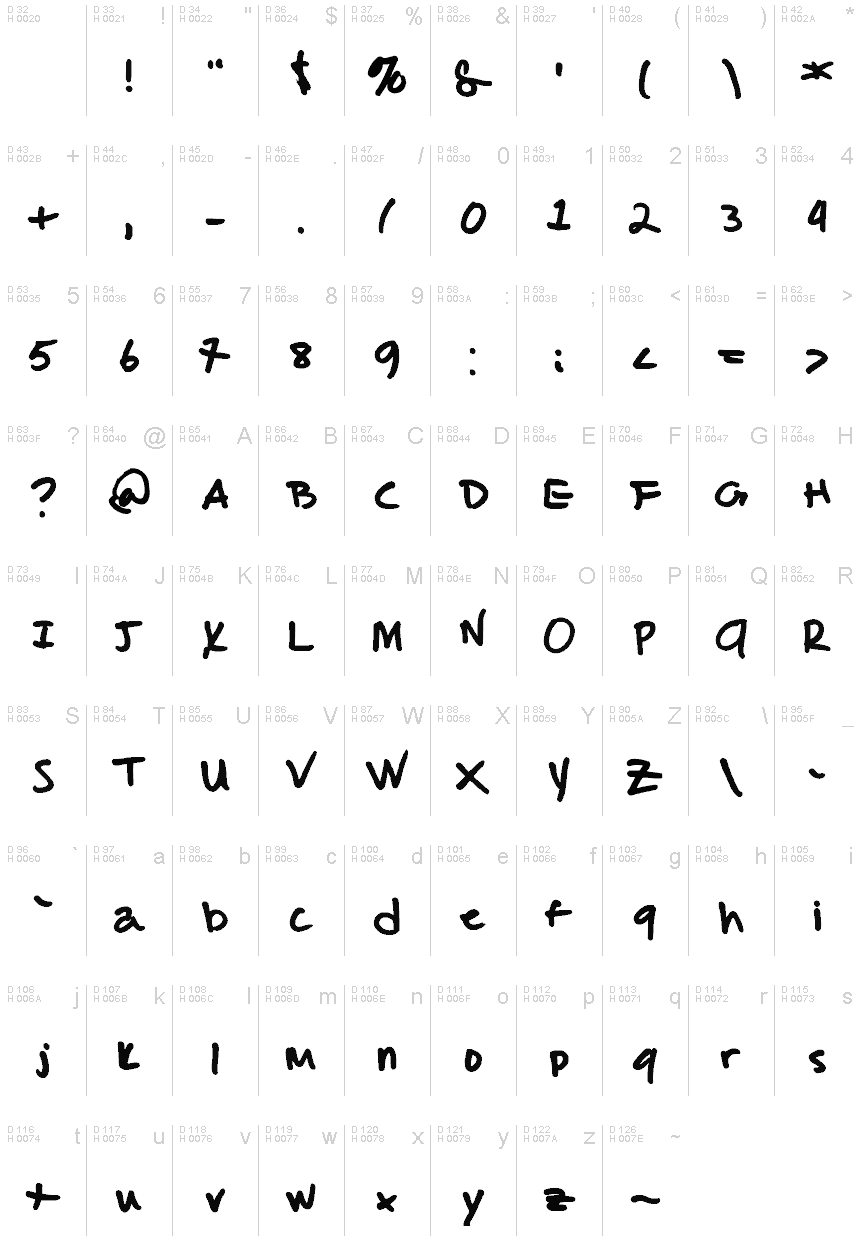
malcolm's handwriting Medium
Malcolm's Handwriting is a captivating font designed by Jasmine, exuding a charming and authentic handwritten aesthetic. The fluid, organic strokes and natural variations create a delightful, personal touch, conveying a sense of warmth and individuality.
The font's unique character is defined by its imperfect, lively lines that seamlessly blend together, mimicking the organic flow of handwritten text. This distinctive style adds a touch of authenticity and personality to any design, making it an excellent choice for projects seeking a handcrafted, personalized look.
Versatile in its applications, Malcolm's Handwriting can elevate a wide range of design elements, from logos and branding to editorial content, packaging, and more. Its adaptability and engaging visual appeal make it a valuable asset for designers seeking to infuse their creations with a genuine, handwritten charm.
The font's unique character is defined by its imperfect, lively lines that seamlessly blend together, mimicking the organic flow of handwritten text. This distinctive style adds a touch of authenticity and personality to any design, making it an excellent choice for projects seeking a handcrafted, personalized look.
Versatile in its applications, Malcolm's Handwriting can elevate a wide range of design elements, from logos and branding to editorial content, packaging, and more. Its adaptability and engaging visual appeal make it a valuable asset for designers seeking to infuse their creations with a genuine, handwritten charm.